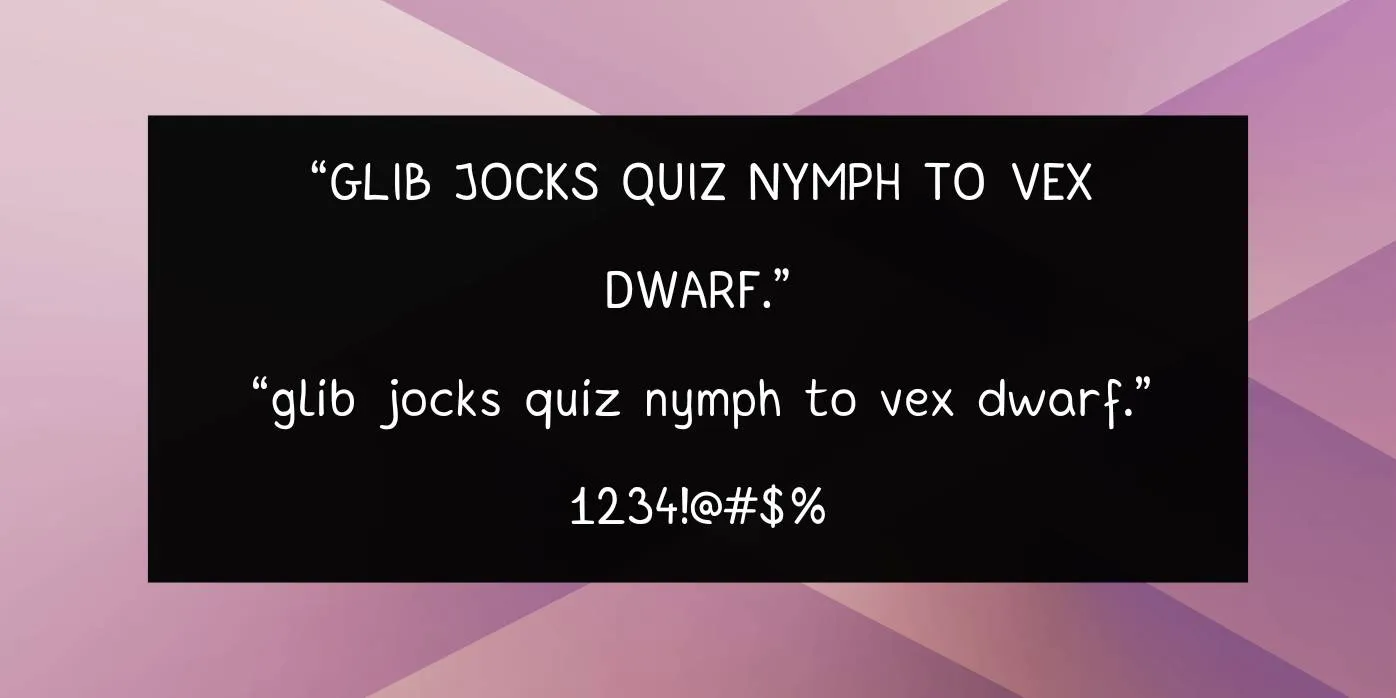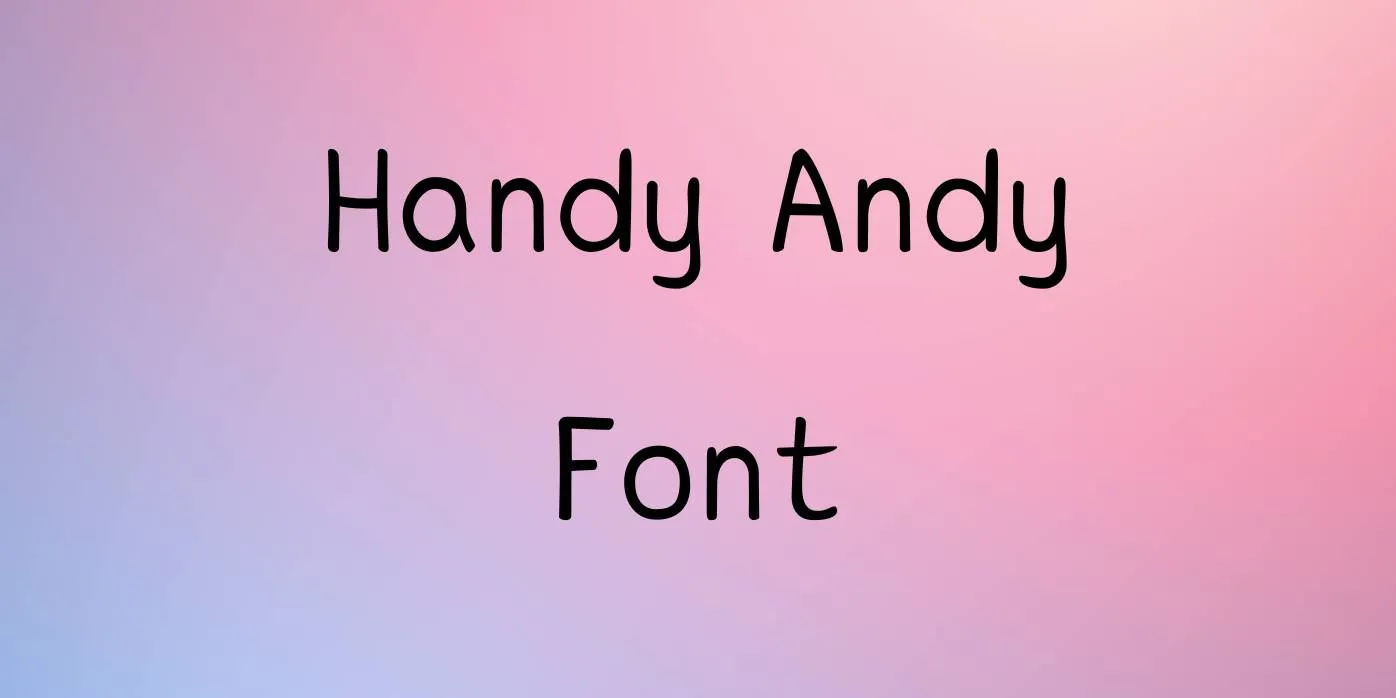
Handy Andy Font
Handy Andy Font is a script type of font. Andrzej Gdula is the designer of this typeface. There are 219 glyphs for this typeface. This texture has one regular style.